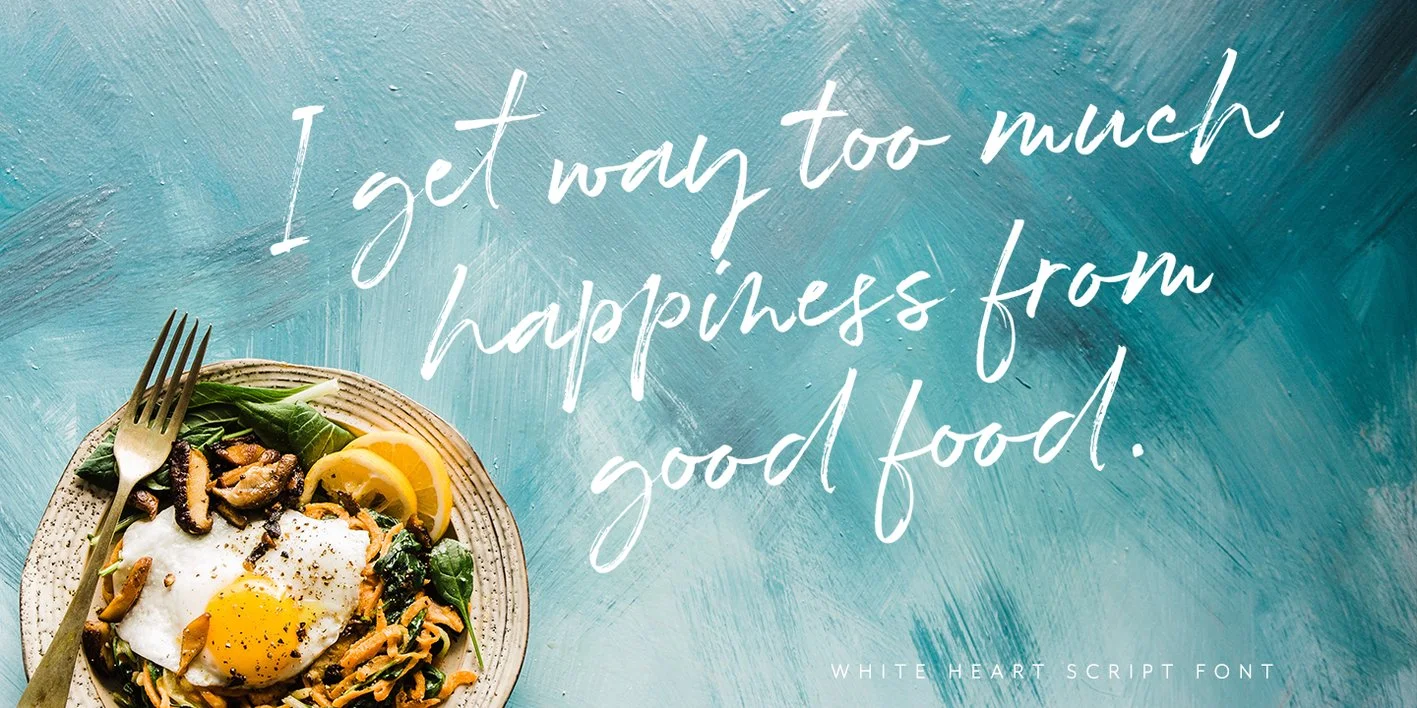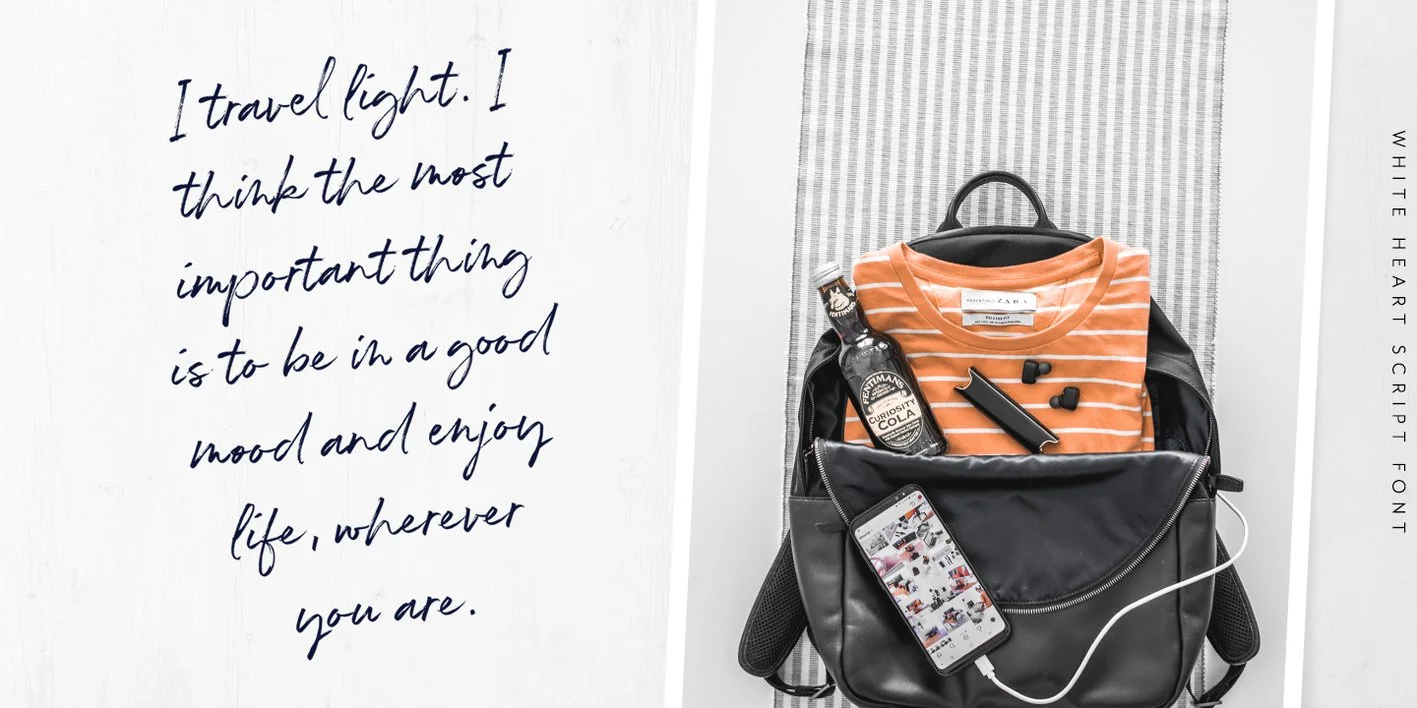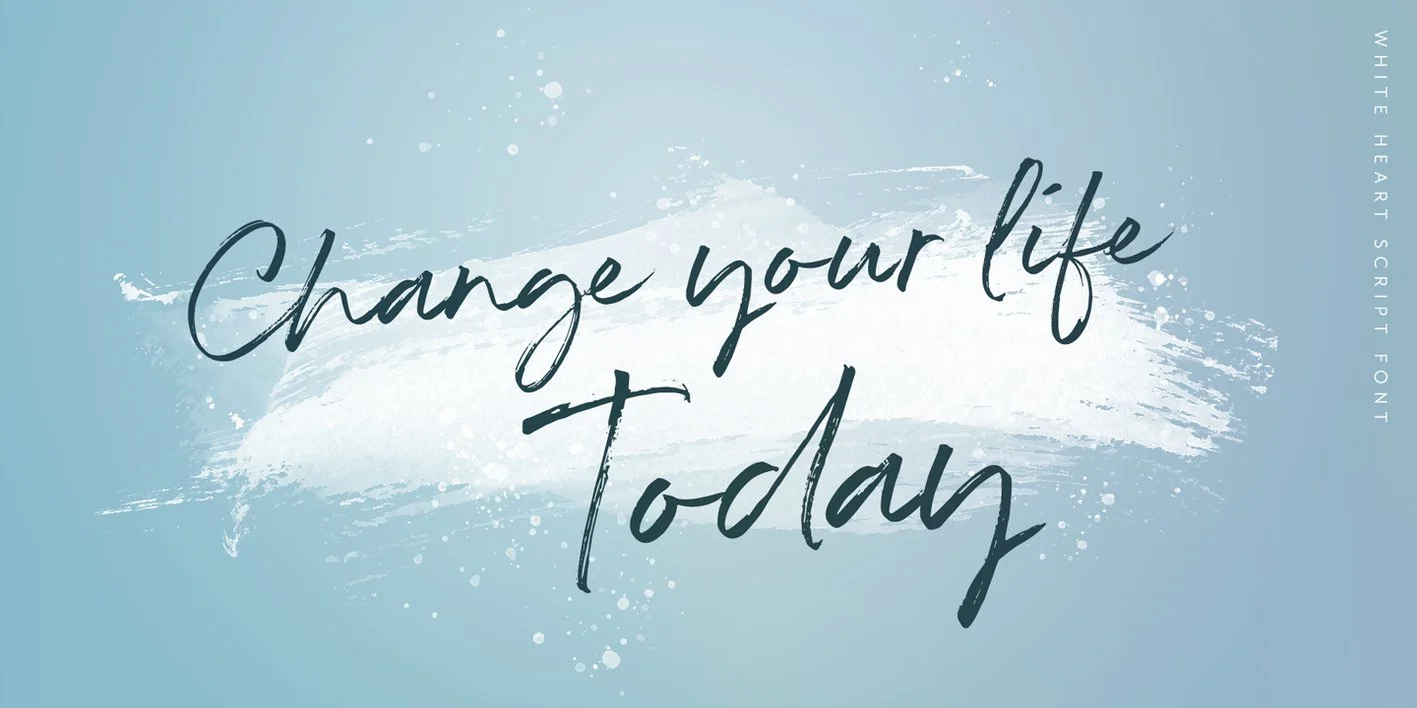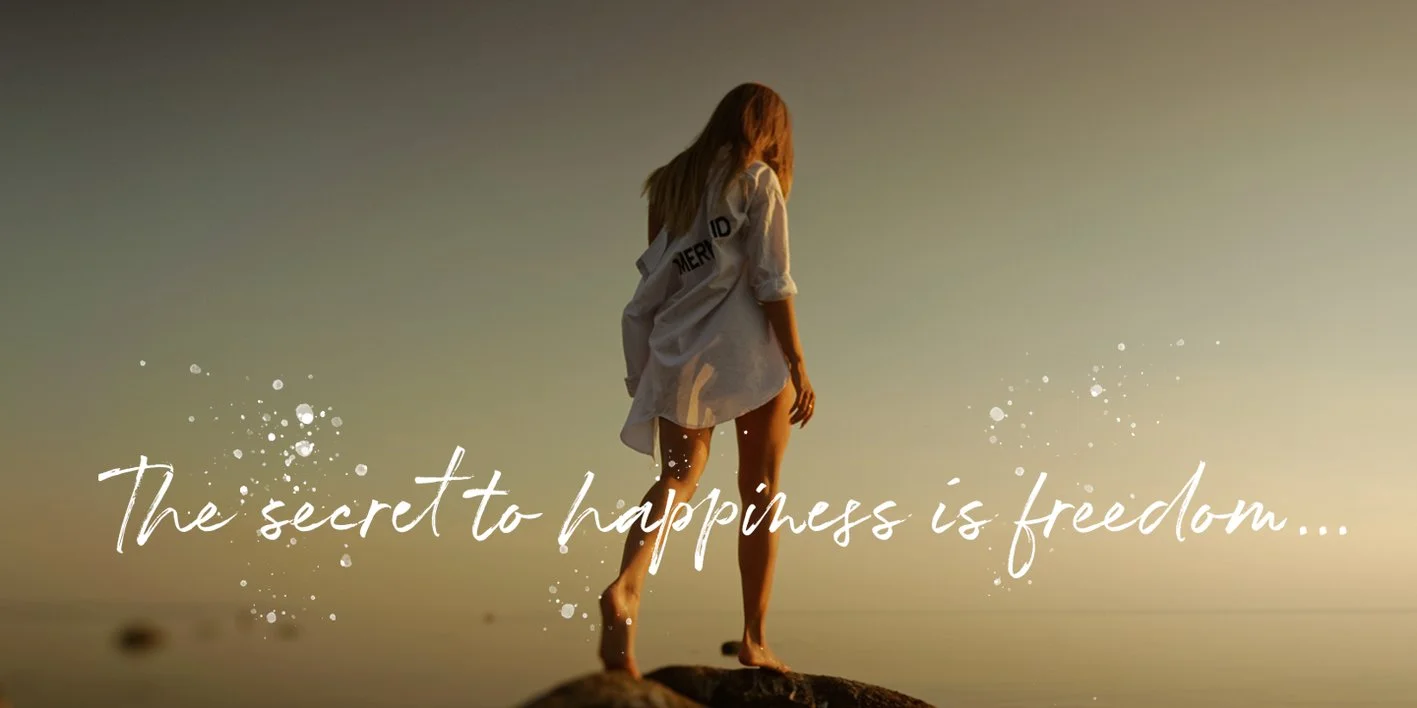
White Heart Font
Few typefaces manage to balance strong typographic hierarchy support with genuine day-to-day practicality. White Heart is one of them. The typeface brings a versatile sensibility to a broad range of creative disciplines, with distinctive character without sacrificing readability that holds up whether the work is print-first or screen-first.
In practice, White Heart proves particularly effective for product labels, social media graphics, packaging design, poster creation, brand identity systems. Designers reaching for it find that the type decisions feel resolved rather than laboured — a useful quality when client timelines are tight.
The range of applications extends to annual reports, signage systems, environmental graphics, advertising campaigns. That breadth is deliberate: the proportions and spacing were stress-tested across a wide range of mock briefs before the typeface was finalised.
Independent studios handling packaging and editorial work find White Heart a reliable choice for projects that demand both personality and restraint. The design avoids the self-conscious quirkiness that dates quickly, settling instead for considered distinctiveness that holds up over time.